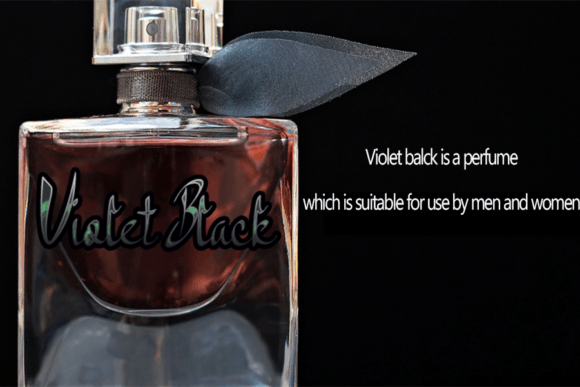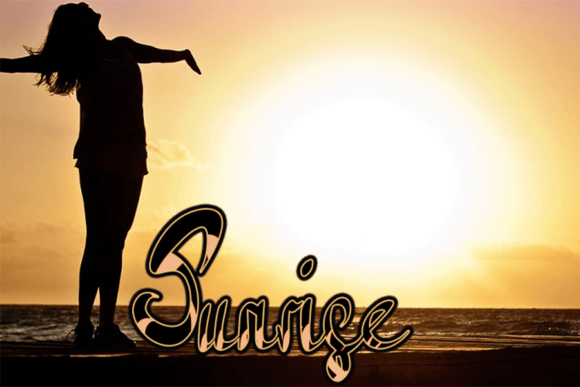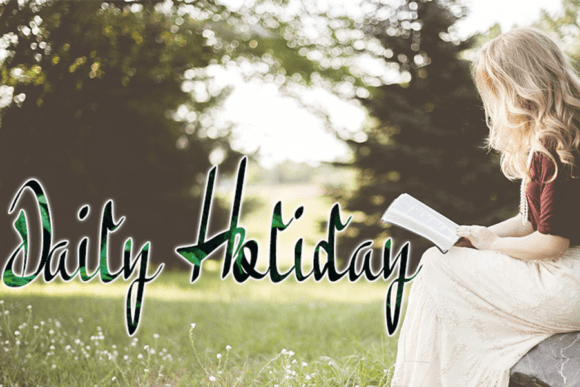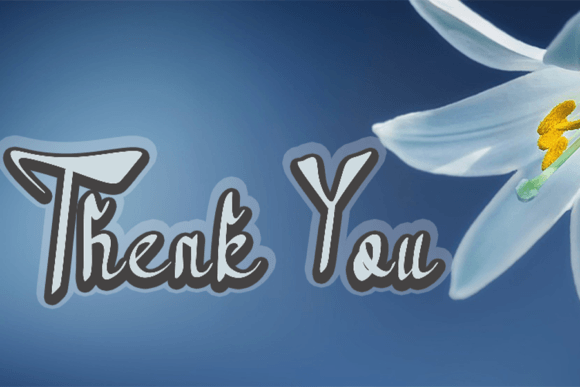
The Magic of the Holiday Season in Typography
As I sit by the fireplace, surrounded by twinkling lights and the warmth of loved ones, I often find myself lost in the joy of the holiday season. And what better way to capture that magic than with the perfect typography? That’s where the Happy Christmas Font comes in – a festive and merry typeface that embodies the spirit of Christmas.
Designed to add a touch of enchantment to your designs, this font is perfect for greeting cards, gift tags, and holiday-themed projects. Its decorative elements and whimsical flair bring a cheerful and nostalgic ambiance to your words, making it a valuable asset for designers looking to create memorable holiday content. With its PUA encoding, accessing all the amazing glyphs and ligatures is a breeze, allowing you to let your typography shine with the magic of the Happy Christmas Font.
Happy Christmas Font Key Features
- Unique Characteristics: The font features festive and playful characters, including ornaments and icons, making it ideal for holiday-themed designs
Designer Review: Happy Christmas Font
Overall, I think the Happy Christmas Font is a fun and festive option for holiday-themed designs ✨. It’s got a playful, hand-drawn feel that’s perfect for adding a touch of whimsy to your projects. The font includes a range of characters, from uppercase and lowercase letters to numbers and punctuation.
- Unique and playful design style ✨
- Wide range of characters, including numbers and punctuation
- Perfect for holiday-themed designs, such as Christmas cards, gift tags, and more
However, there are a few limitations to consider ⚠️. The font is quite ornate, which can make it difficult to read at smaller sizes. Additionally, the characters may not be compatible with all devices or operating systems, which could lead to issues with font rendering.
- May be difficult to read at smaller sizes
- May not be compatible with all devices or operating systems
Overall, I think the Happy Christmas Font is a fun and festive option for holiday-themed designs. While it has some limitations, it’s a great choice for adding a touch of whimsy to your projects. Just be sure to test the font carefully to ensure it works well in your specific design context.
Use the Happy Christmas font for holiday-themed designs, such as Christmas cards, gift tags, and party invitations.
Experiment with different font sizes and styles to create a playful and festive atmosphere.
Combine the Happy Christmas font with other festive graphics, such as snowflakes, holly, and candy canes, to create a cohesive design.